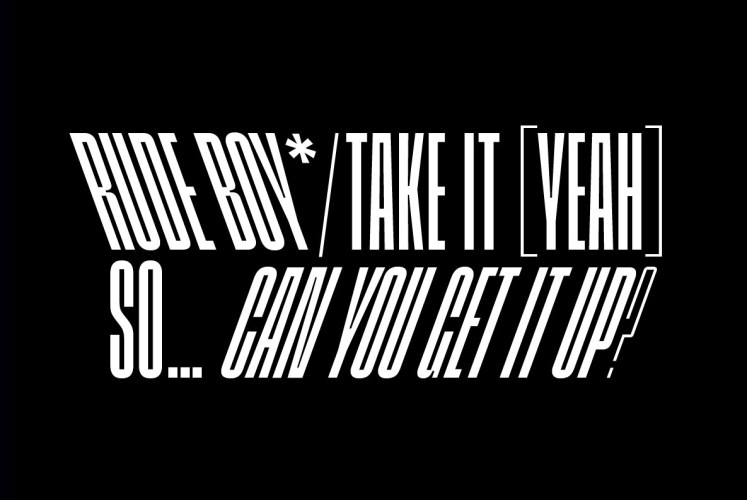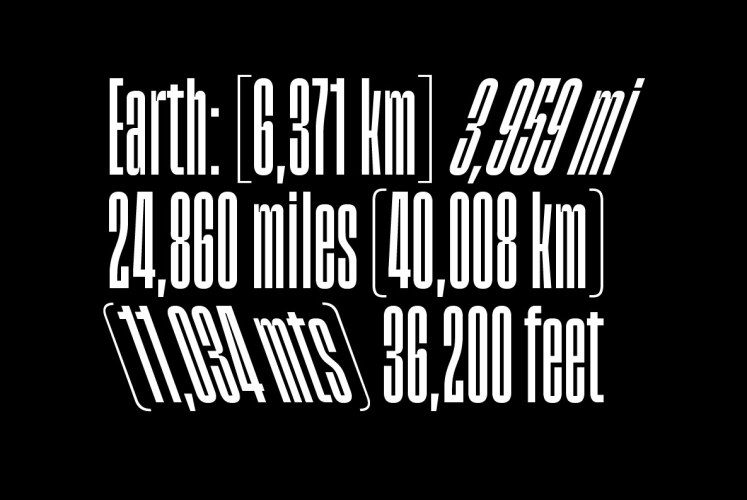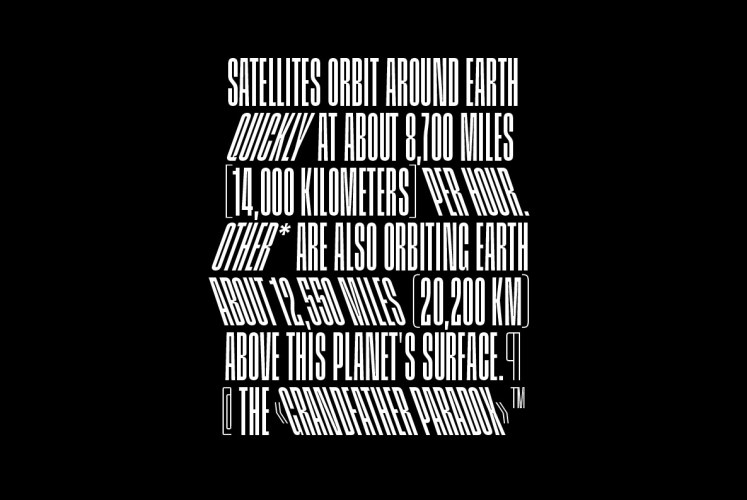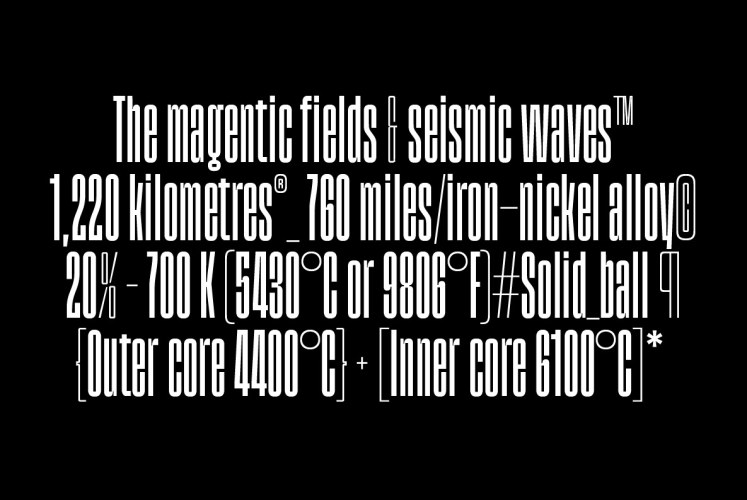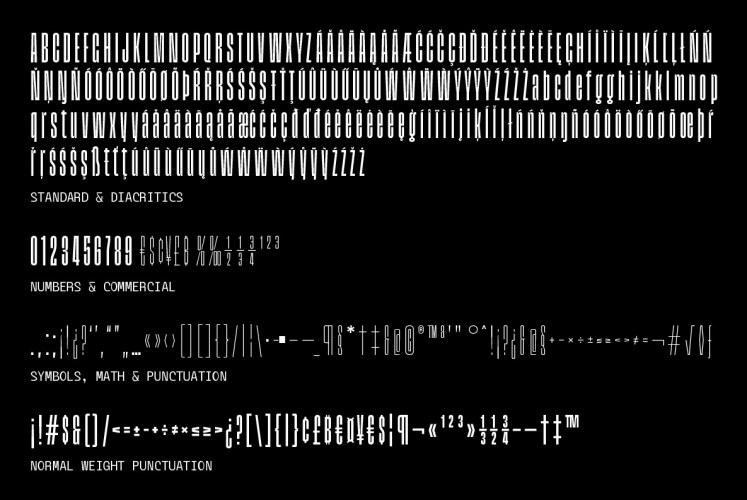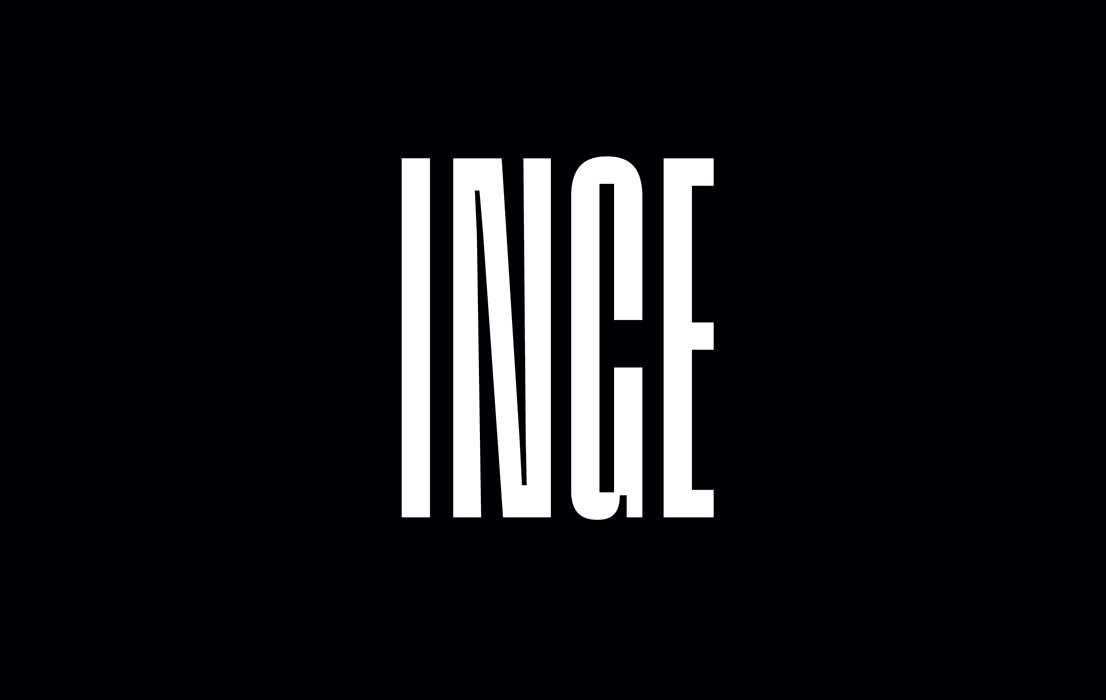
Inge Font Family
Inge is a tight display font with a strong sense of rhythm and a very solid texture. The narrow shapes on it make Inge very suitable to be used on large scales, creating robust solid text blocks. The side-to-side movement are a hint that something is accelerating, without losing strength and control. It is a single weight typeface. But its perfect balance between acceleration and strength gives Inge a unique and pure endurance. Inge is named after Inge Lehmann, a Danish seismologist and geophysicist who discovered that the Earth has a solid inner core inside a molten outer core. She lived over 104 years.
Inge Font Family is a Sans Serif Fonts font that brings a professional and versatile look to your projects. Inge is a tight display font with a strong sense of rhythm and a very solid texture.